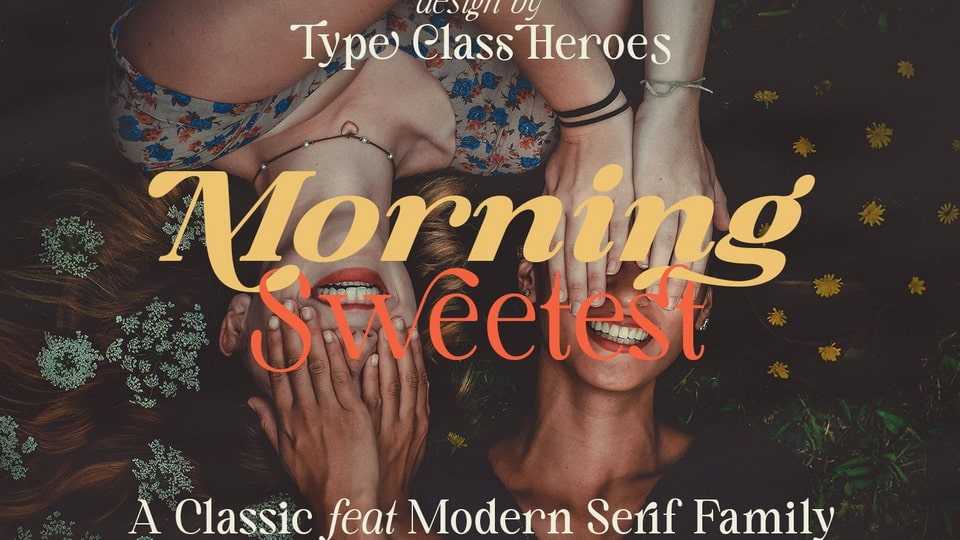
Download Morning Sweetest font, a classic serif typeface with modern look. Morning Sweetest is suitable to create any branding, product packaging, invitation, quotes, t-shirt, label, poster, logo etc.